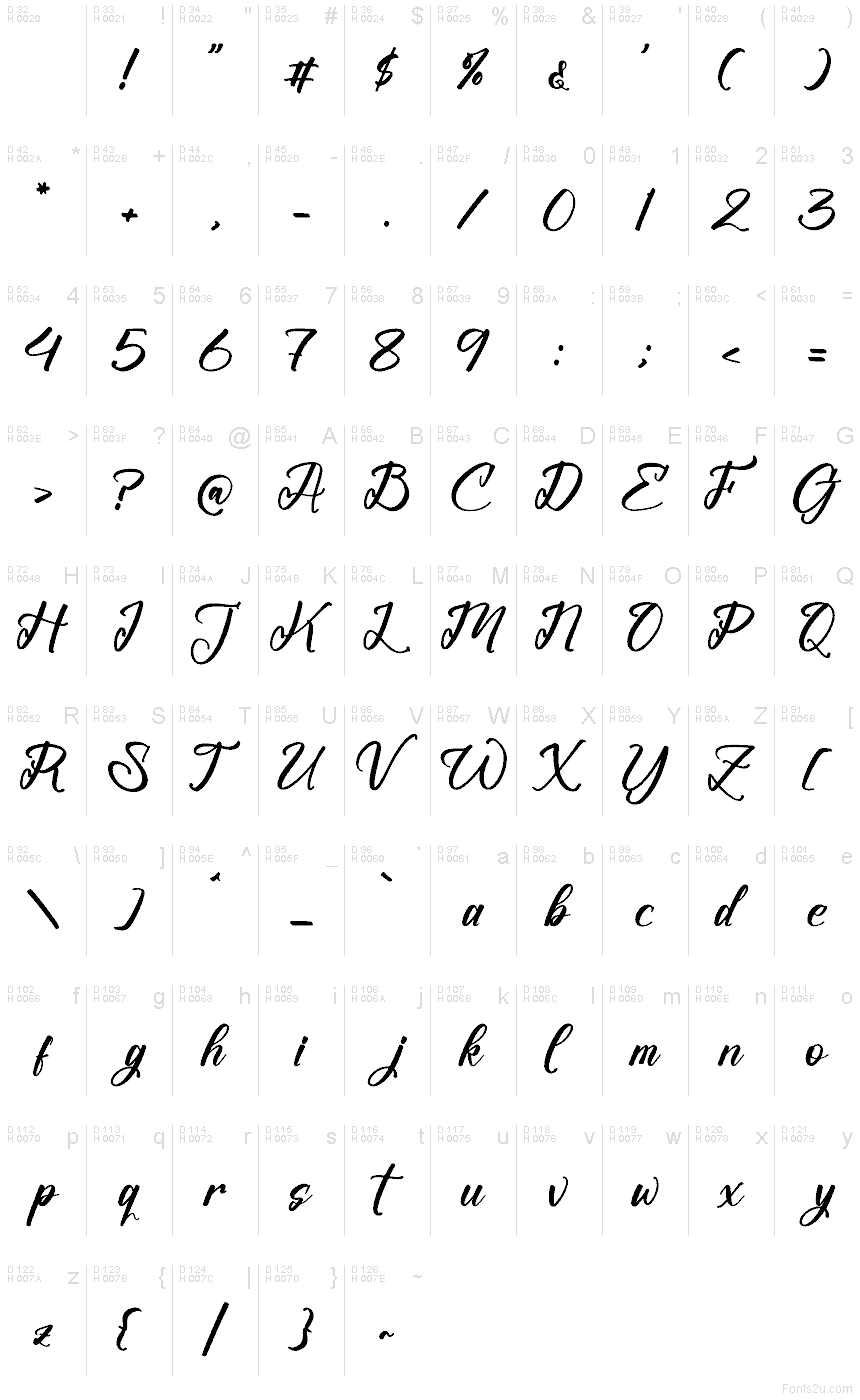
Violendy Qishega
Violendy Qishega font by Letterena Studios is a splendid free calligraphy font that fuses an elegant mood with handwritten appeal. Fluid strokes and decorative flair carve out each character into a unique design element, forming a cohesive script with high versatility. This font combines the best of beautiful simplicity to produce alluring results.
Use Violendy Qishega in event posters, invitations, thoughtful social media posts, blogs, landing pages, elegant magazines and brands, inspirational quotes or manifestos that need ambiance.